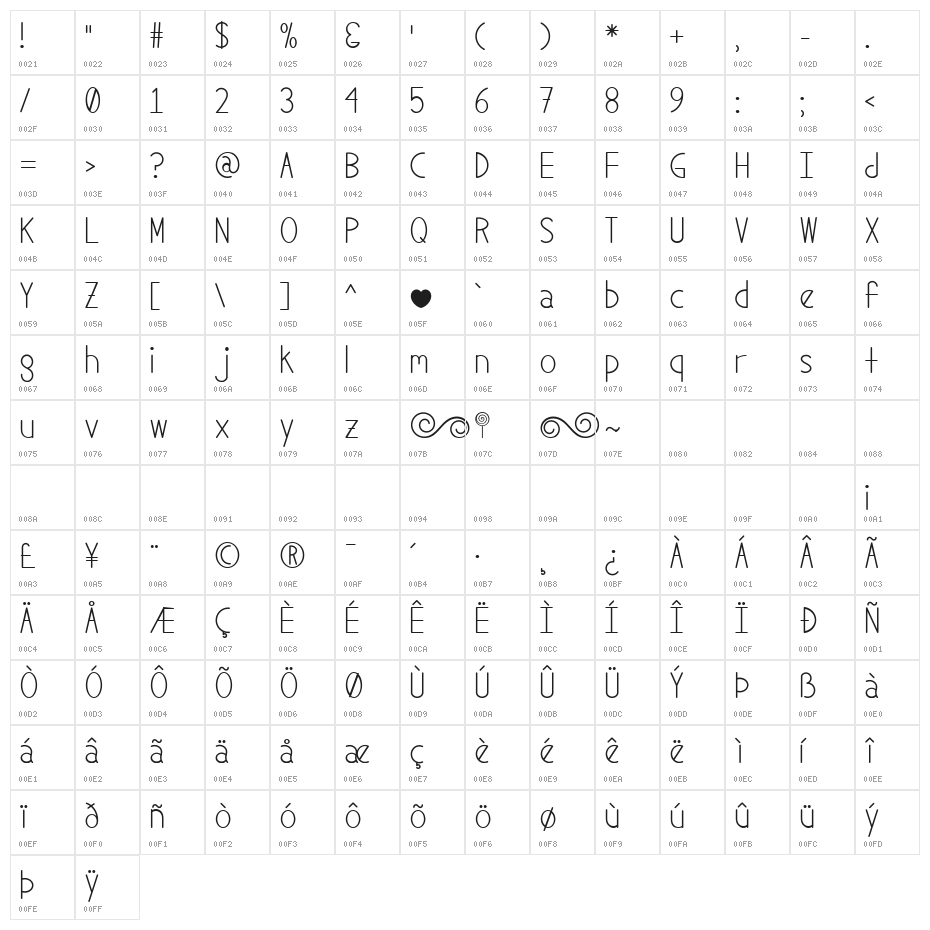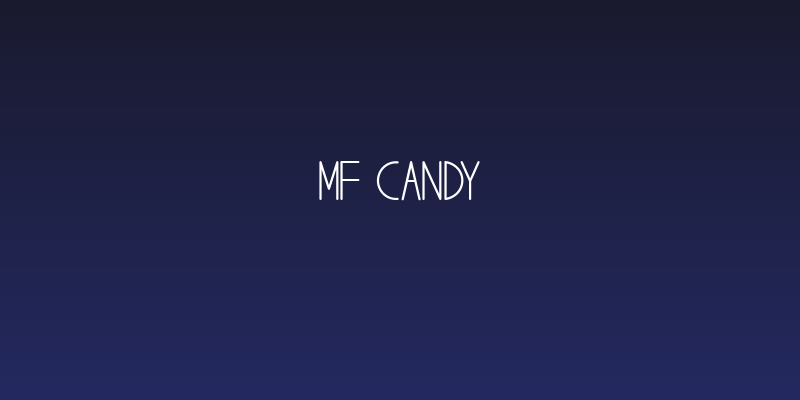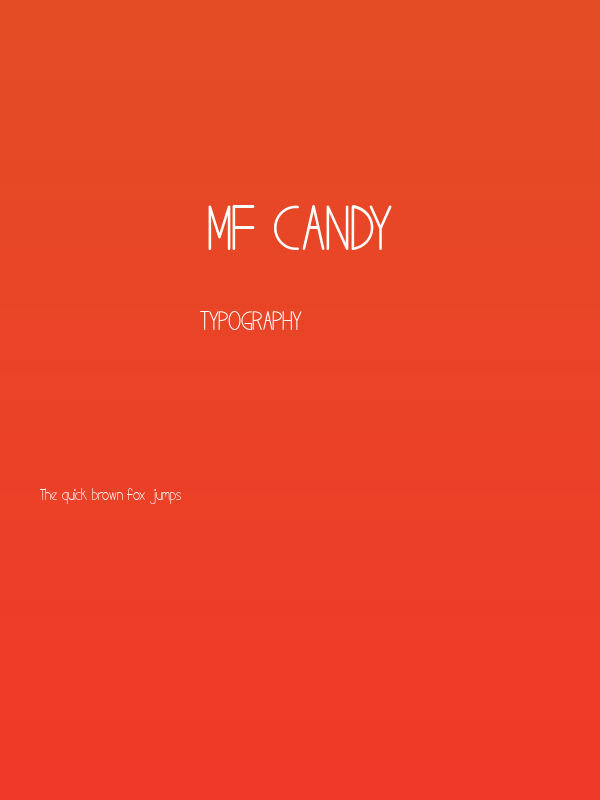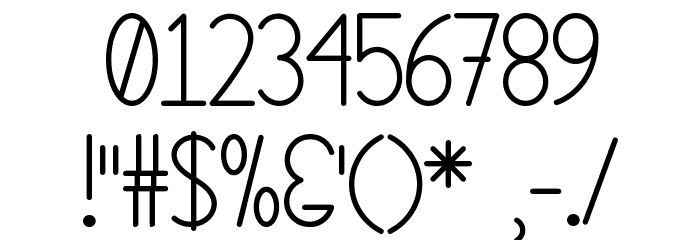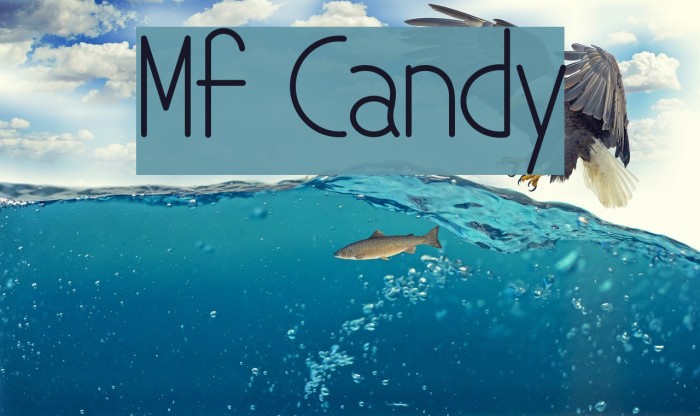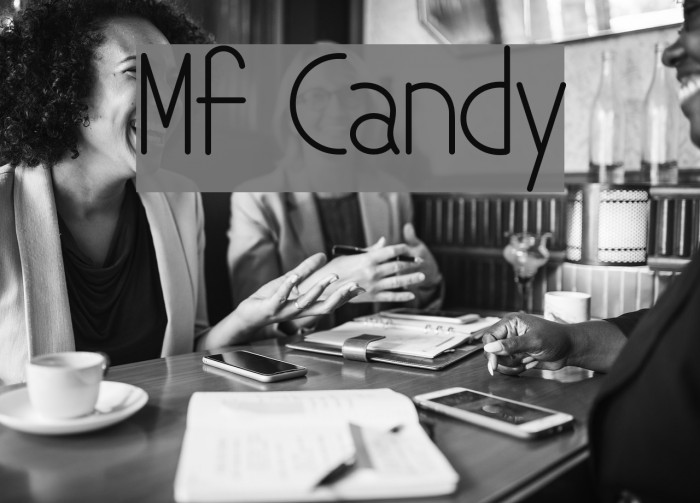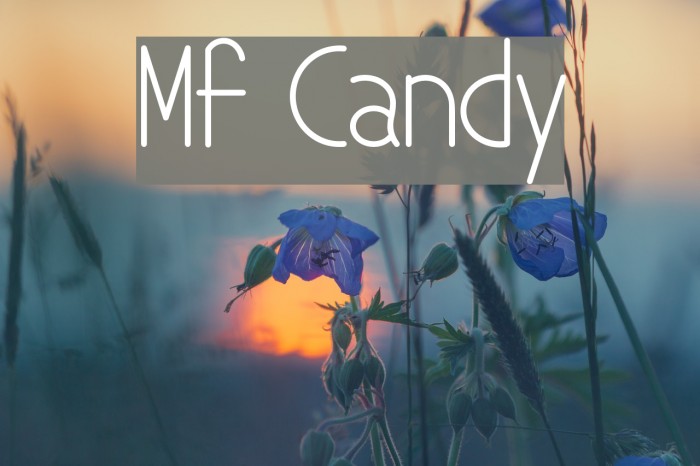
Mf Candy Font
Mf Candy Description
This playful and whimsical font features rounded, smooth lines that give it a friendly and approachable feel. The characters are evenly spaced with a consistent stroke width, creating a harmonious and balanced appearance. The uppercase letters are tall and slightly narrow, while the lowercase letters maintain a similar height, enhancing readability. The numerals and special characters follow the same design principles, ensuring uniformity across all elements. This font's simplicity and charm make it suitable for a variety of creative projects.
| Proposed Projects | Ideal for children's books, playful branding, greeting cards, and casual invitations. |